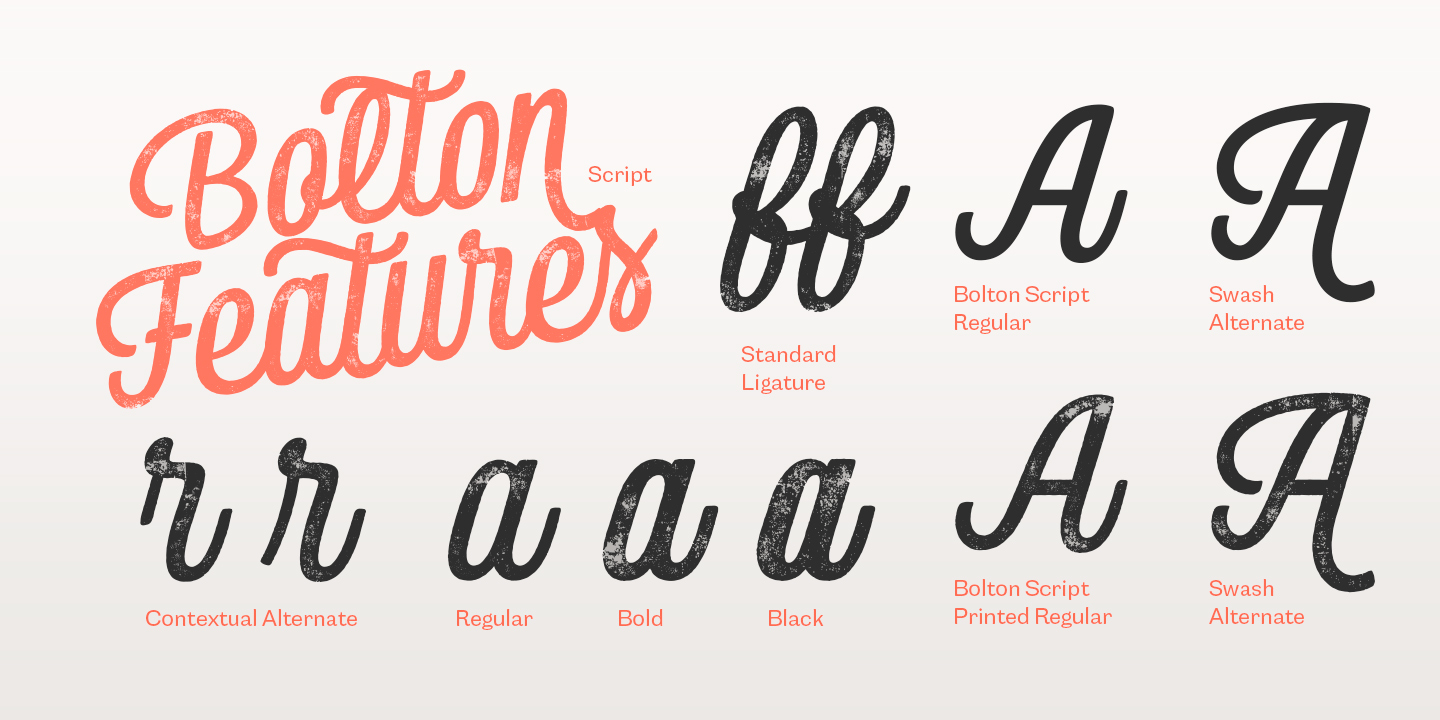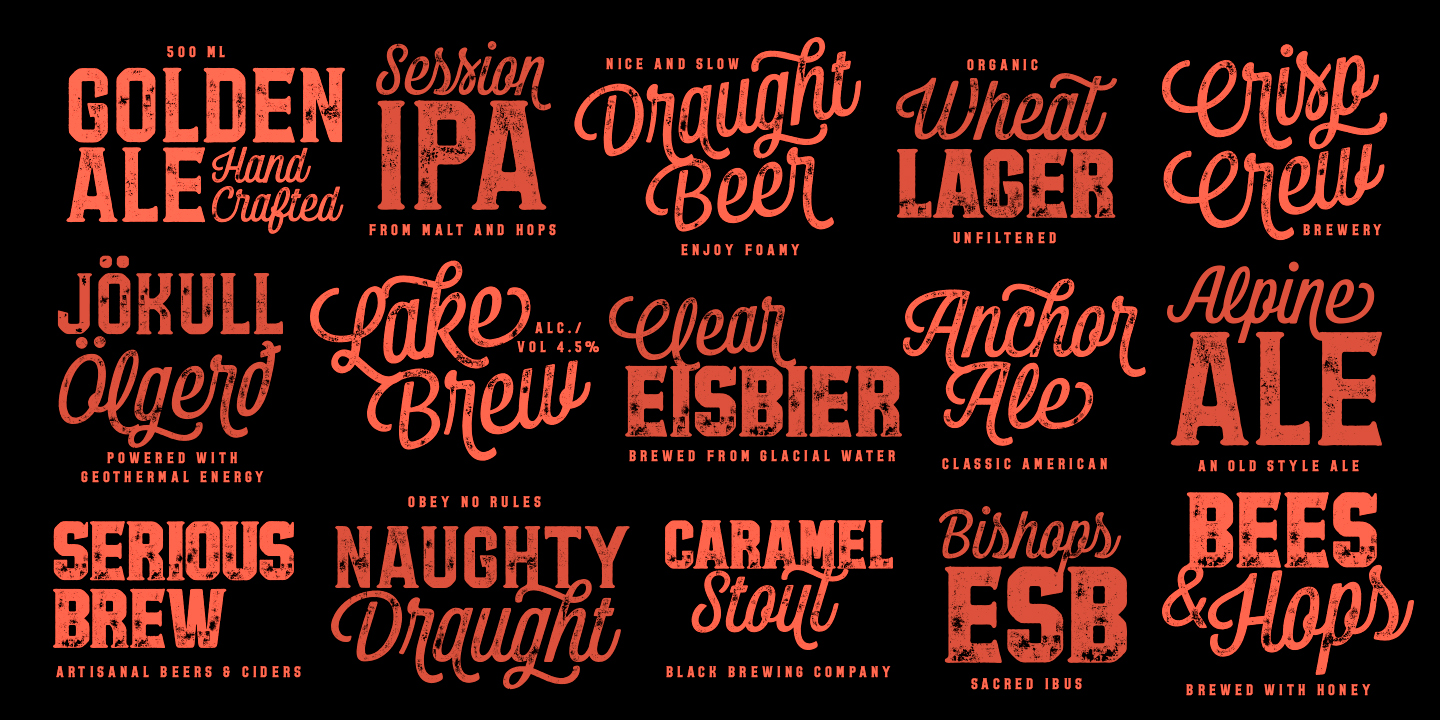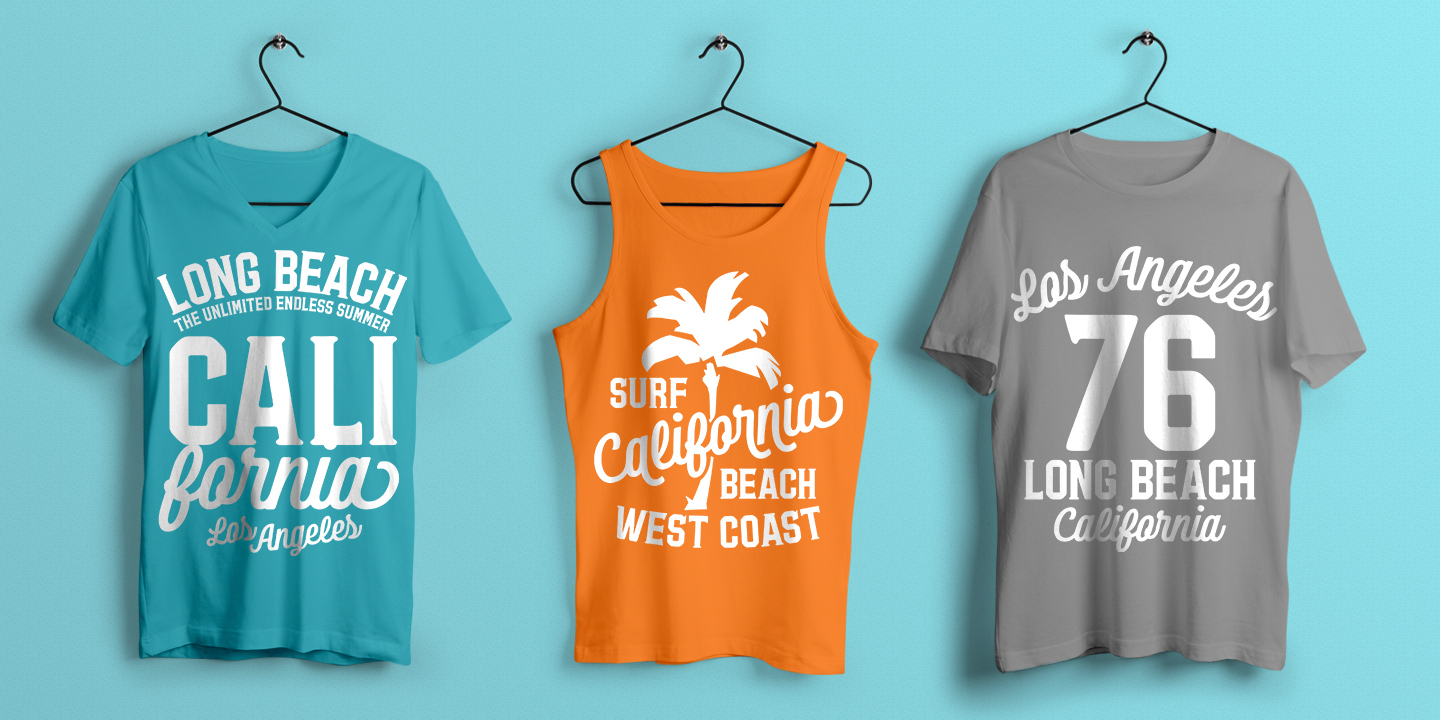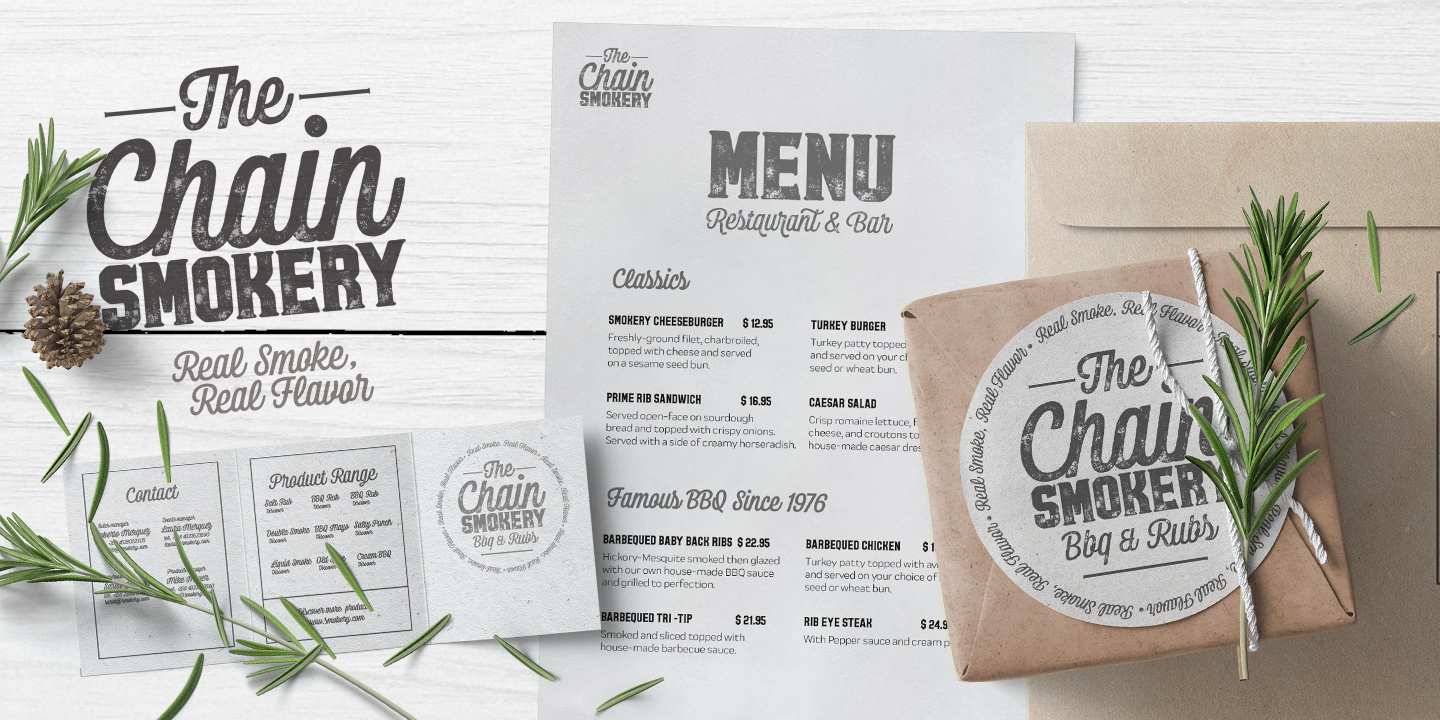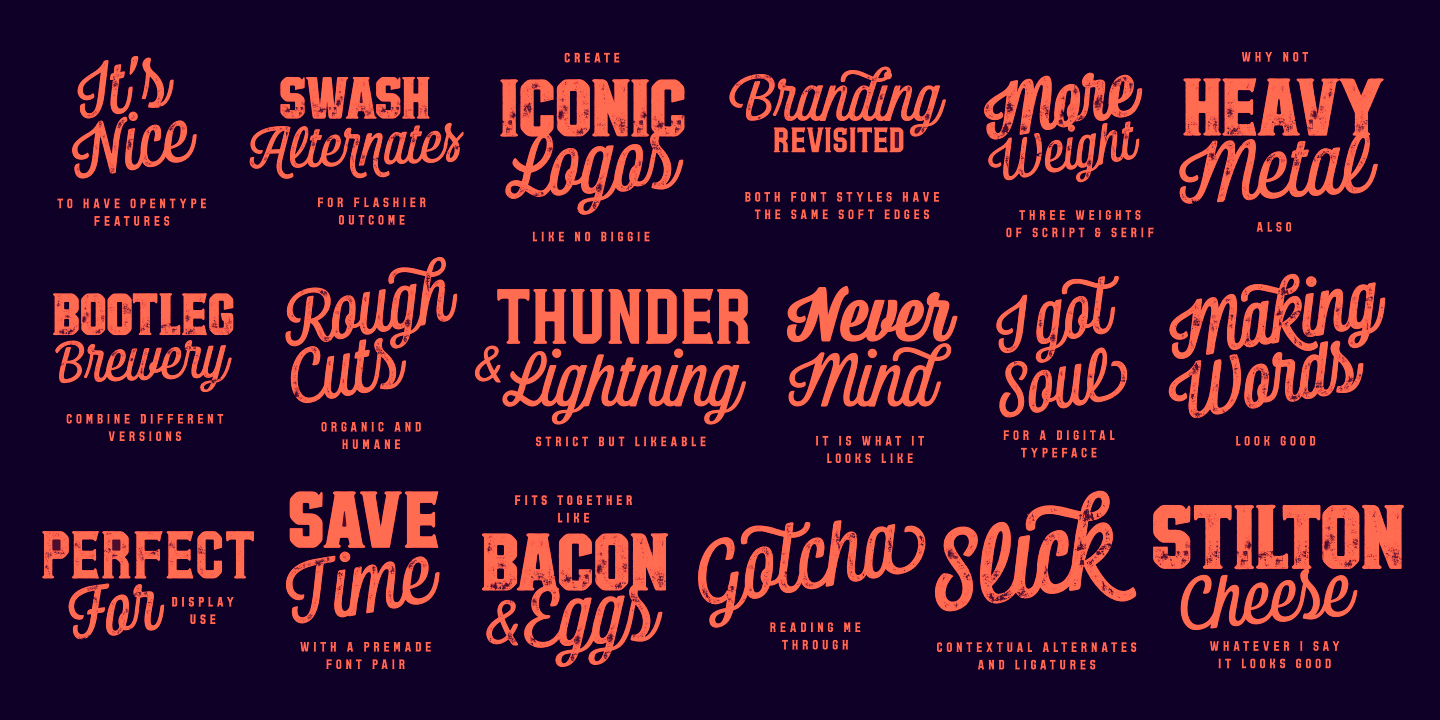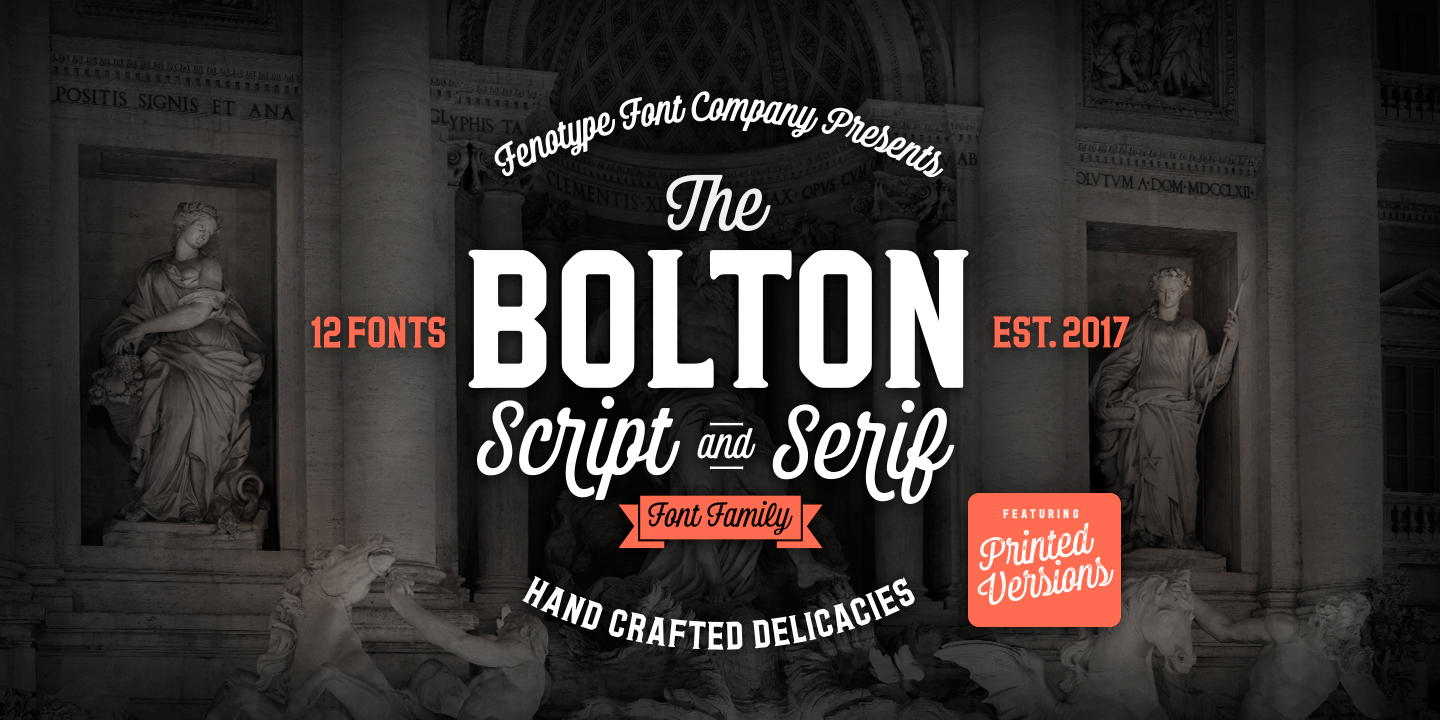
Bolton is a strong pack for creating catchy headlines and logotypes. With the whole family you can easily create a whole identity for your project. Bolton is great for branding, packaging and posters or any other kind of display use.
Bolton Script has very high x-height that create very solid word shapes. Scripts are equipped with Standard Ligatures and Contextual Alternates to keep the flow. If you need flashier letters there’s a Swash Alternate for every basic character.